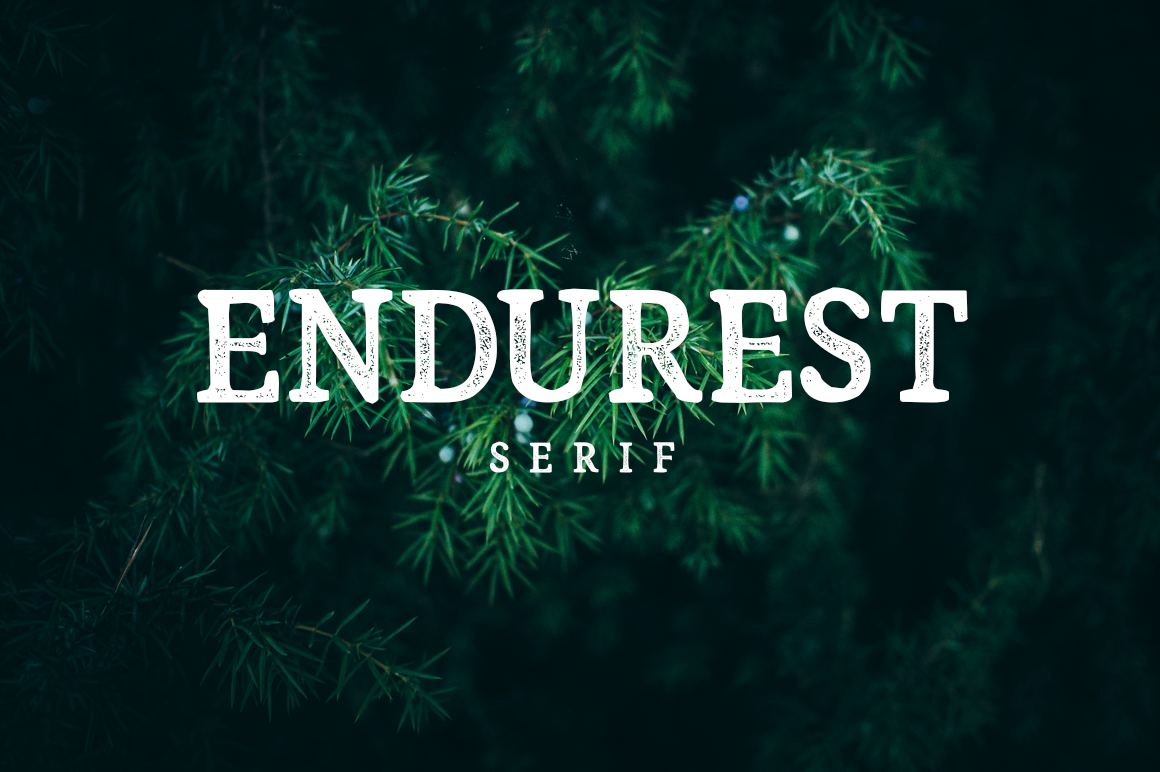
Endurest - Serif Font
This Endurest - Serif Font is perfect for luxury publishing, editorial magazine layouts, premium book design, financial institution materials, law firm communications, academic publications, classic brand identities, high-end product packaging, traditional wedding invitations, and sophisticated corporate literature.
What makes this Endurest - Serif Font exciting is its timeless sophistication that embodies enduring elegance and literary excellence. The font features refined serif letterforms with classical proportions that convey authority, trustworthiness, and intellectual depth. Its enduring character and traditional refinement make it ideal for brands seeking to communicate permanence, quality, and scholarly credibility in prestigious markets.
The Endurest - Serif Font family includes light, regular, medium, and bold weights with italic variants and classical alternates. This comprehensive traditional font family provides designers with the editorial tools to create distinguished typographic compositions while maintaining the scholarly character essential for premium publishing and institutional communications.
Publishing houses and prestigious institutions consistently choose Endurest - Serif Font Free Download for projects requiring classical elegance and editorial authority. This font's distinctive traditional character perfectly captures the enduring values of scholarship, quality literature, and institutional credibility that resonate with audiences who appreciate authentic intellectual excellence and timeless design principles.
The classical construction of Endurest - Serif Font showcases carefully crafted serif details with traditional proportions that ensure exceptional readability across extensive text applications. Its scholarly appearance and refined details create memorable impressions while maintaining the legibility essential for long-form reading and academic documentation.
Professional designers appreciate how Endurest - Serif Font brings immediate authority and literary sophistication to brand communications. The font's traditional nature allows organizations to communicate scholarly expertise and institutional credibility while maintaining the timeless appeal necessary for effective positioning in prestigious academic and publishing markets.
The enduring appeal of Endurest - Serif Font makes it particularly effective for brands emphasizing tradition, scholarship, and intellectual excellence. Its classical character resonates strongly with audiences who appreciate authentic quality, literary tradition, and institutions that prioritize enduring values over temporary trends.
Whether developing materials for academic institutions or creating publications for literary organizations, Endurest - Serif Font Free Download provides the scholarly typographic foundation that prestigious brands need to communicate their intellectual authority, editorial excellence, and the enduring quality that defines traditional scholarship and literary achievement.